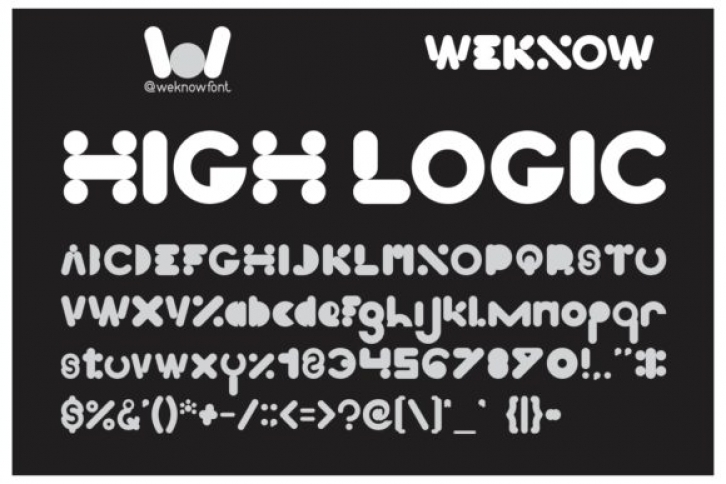
High Logic is a techno font. It has an abstract and playful styles that makes it suitable for logos, brand identity, apparel industry, posters, movies, game, magazine and more!